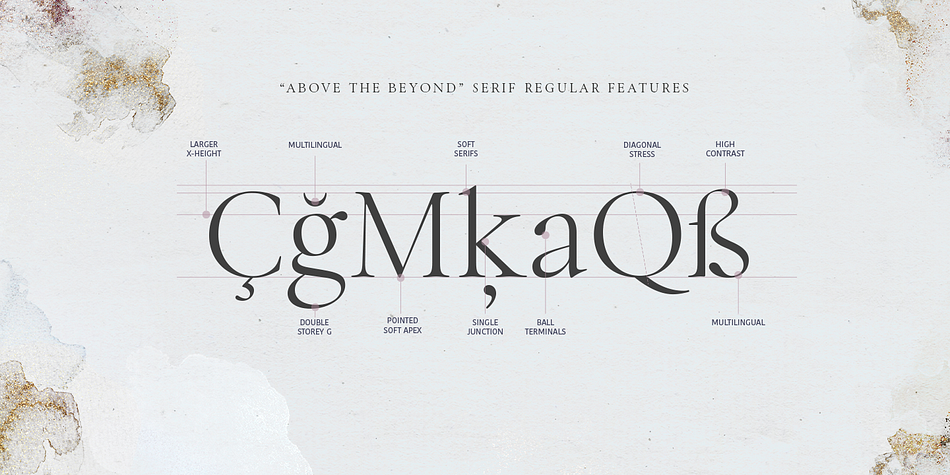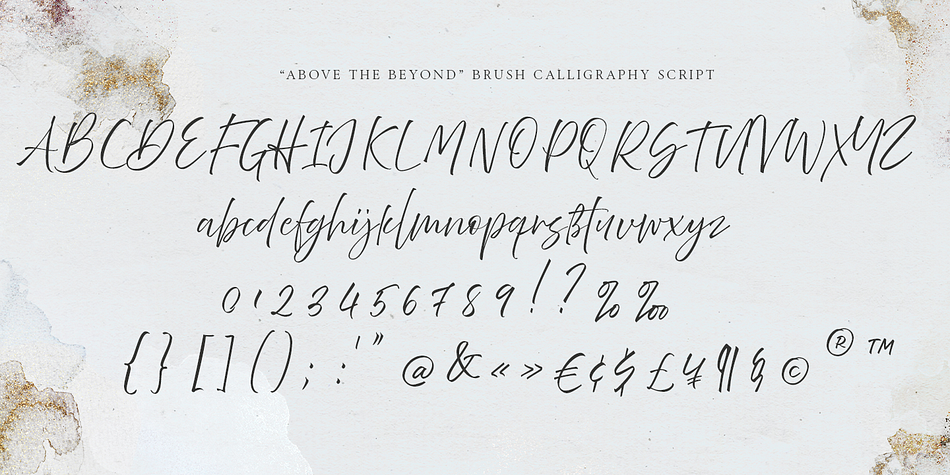
Above the Beyond
Designed by Elena Genova, Above the Beyond is a modern calligraphy, script and serif font family. This typeface has three styles and was published by My Creative Land.
Above the Beyond is a font family that contains a high contrast Contemporary Garamond Serif and a Casual Signature Brush script. The serif comes in two styles - Regular and Italic - the italic angle is similar to the one used in the Script font.
The main difference between traditional Garamond and Above the Beyond Garamond is that the ascenders are significantly shorter which makes the serif fonts more suitable for branding design and helps to reduce the distance between lines without scarifying the legibility.
The Italic style has many stardard ligatures as well as calligraphic ones.
Above the Beyond Script is full of OpenType enhancements such as ligatures and alternates - everything that is needed to create an organic handwritten look. It is fully unicode mapped and can be used in any software - either using OpenType panel of the application in use or your OS default Font management software - Character Map or FontBook - by copy-pasting the glyphs you need.
The font family is perfect for all kind of designs: quotes, t-shirt, branding, social media, magazines, cards, packaging etc.